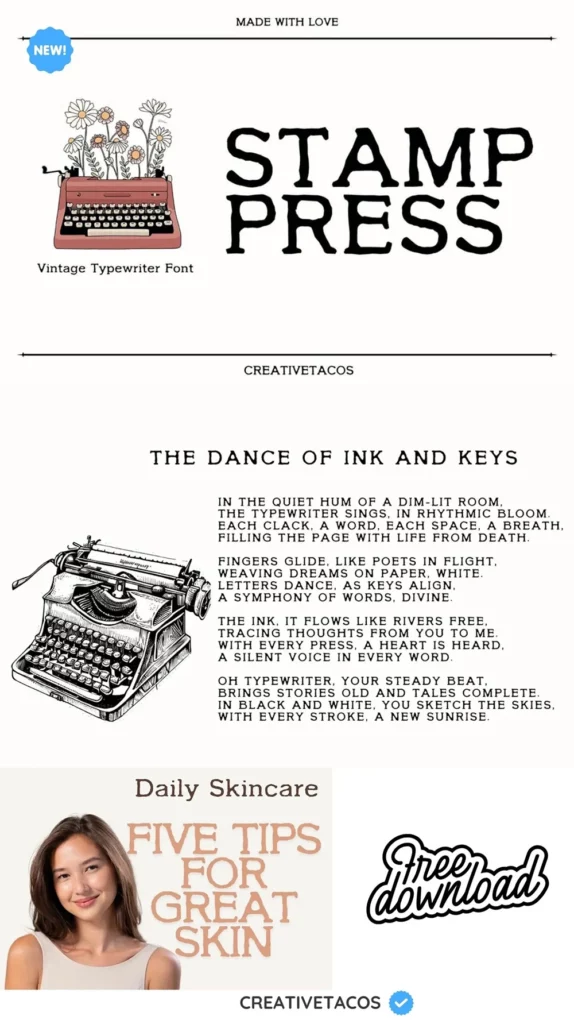
Stamp Press Typewriter Font
Stamp Press Typewriter Font is a beautifully crafted vintage typewriter font that brings retro-type charm to modern projects. With its rough edges and imperfect letters, it mimics the authentic look of an old-fashioned typewriter.
It includes a full set of uppercase and lowercase letters, numbers, and punctuation with a variety of special characters. The Stamp Press Typewriter font is perfect for creating many projects such as logos, posters, invitations, and social media graphics. It can also be used to add a touch of personality to your website or blog.